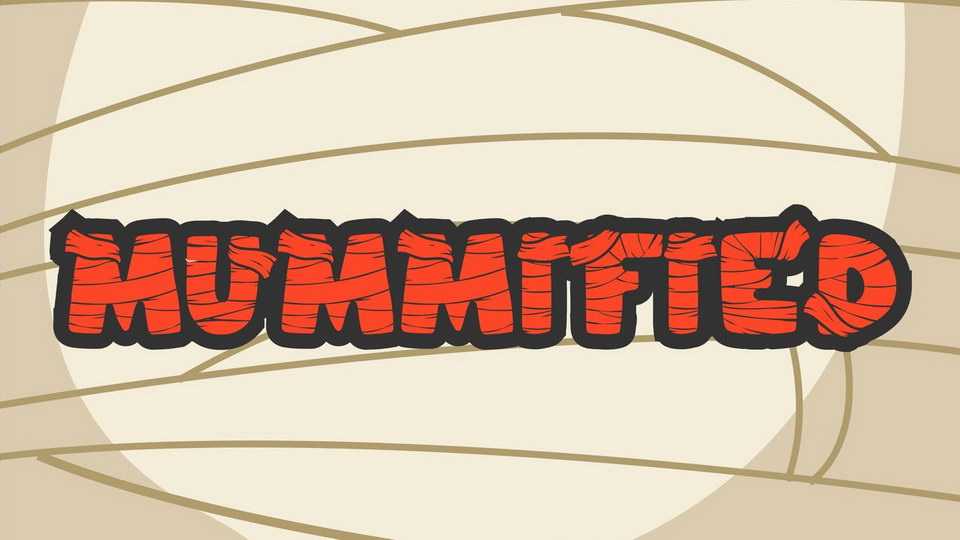
Download Mummified font, a fun display typeface in two styles inspired by mummies. Suits perfectly for online games, poster, movie title, fast food menu, magazine, YouTube covers, thumbnails, social media page covers and so on…o